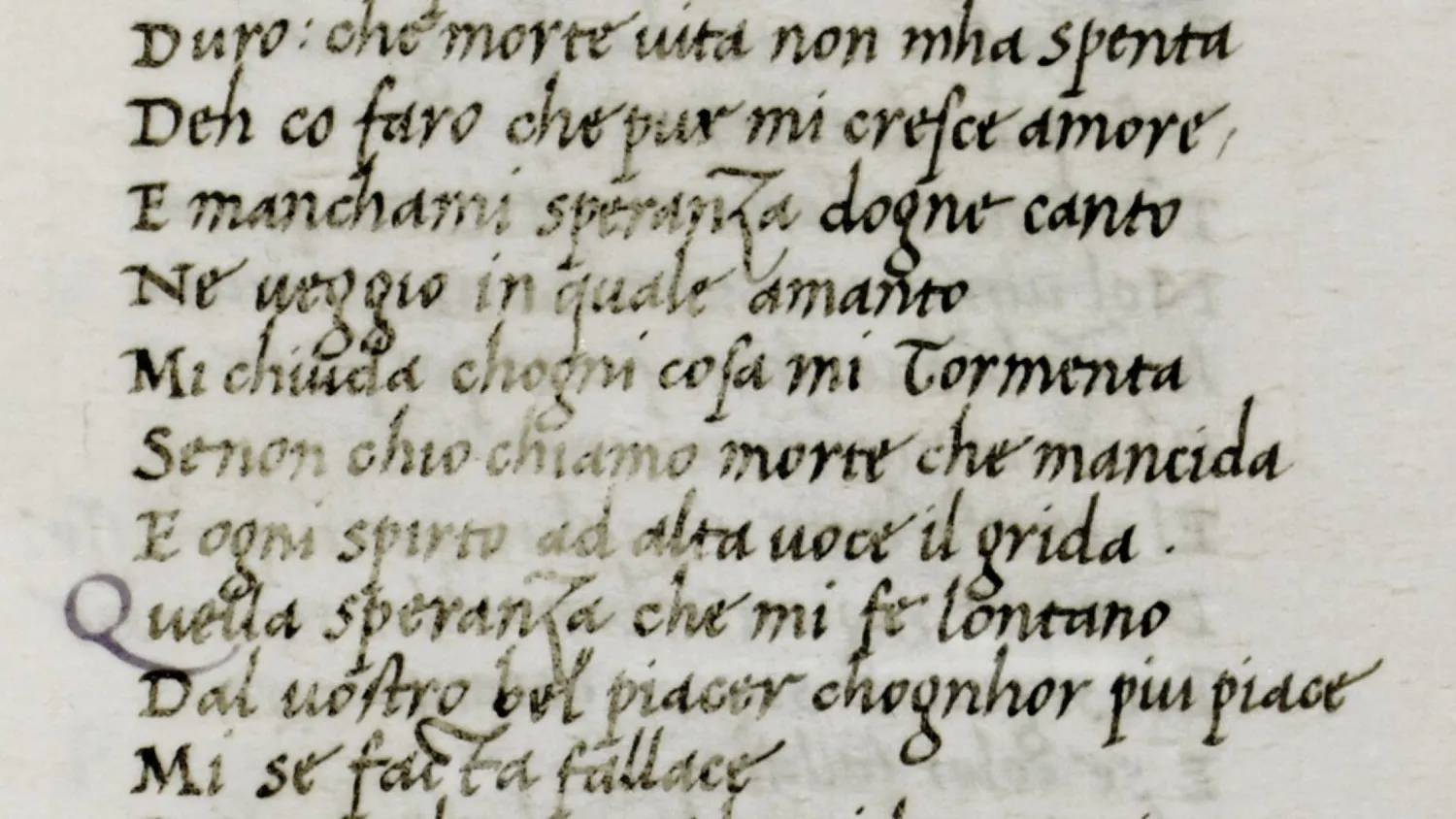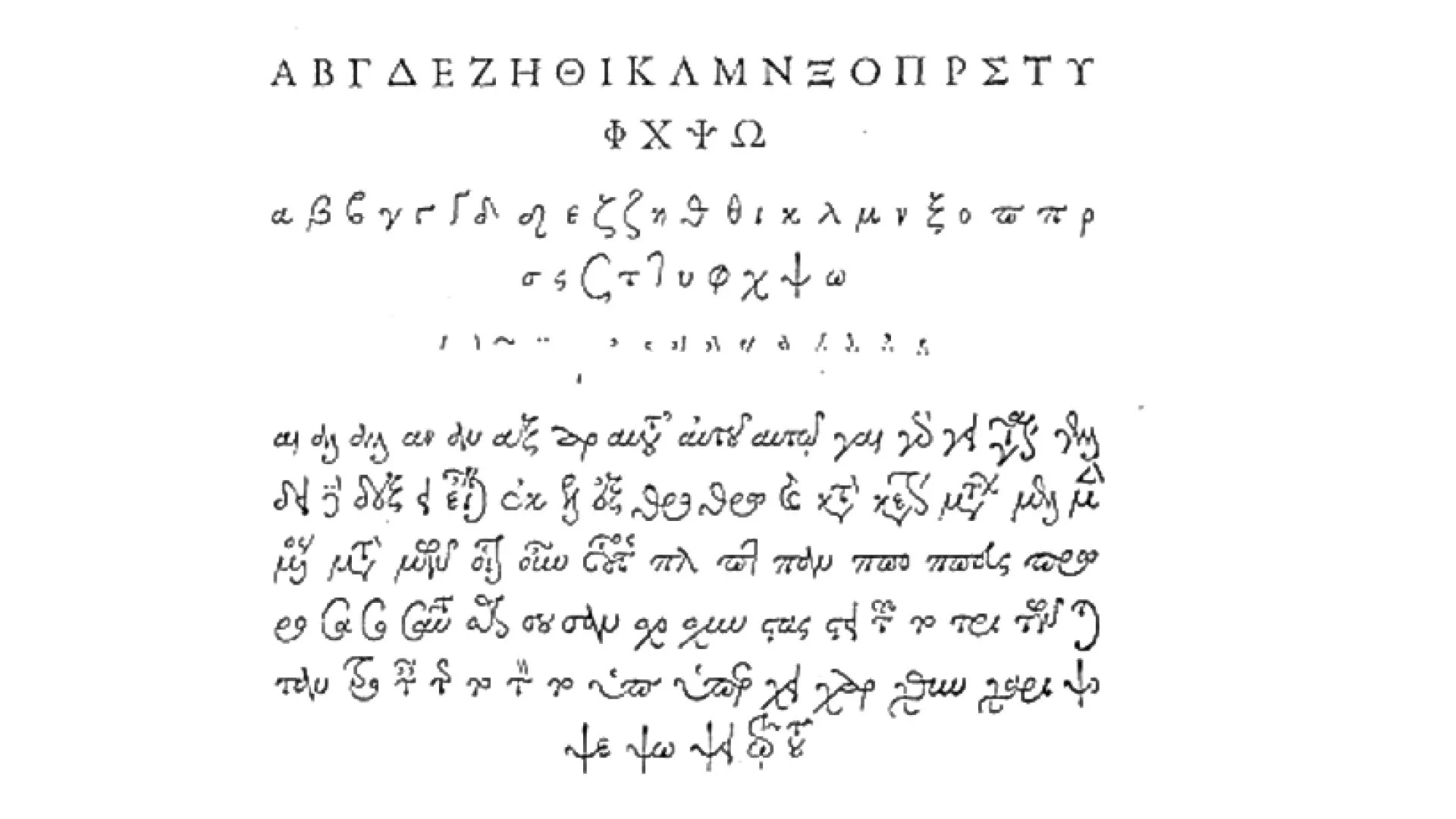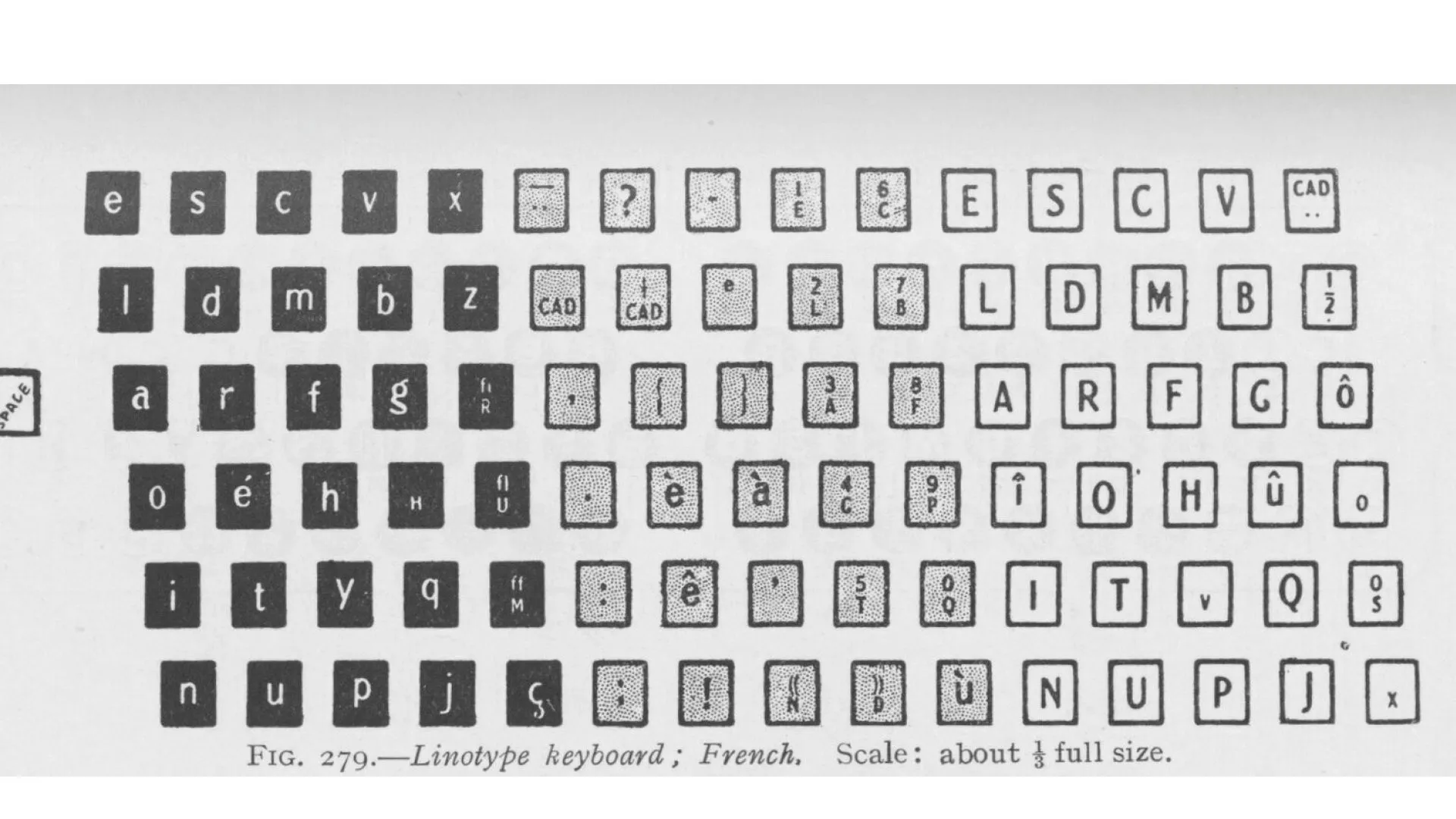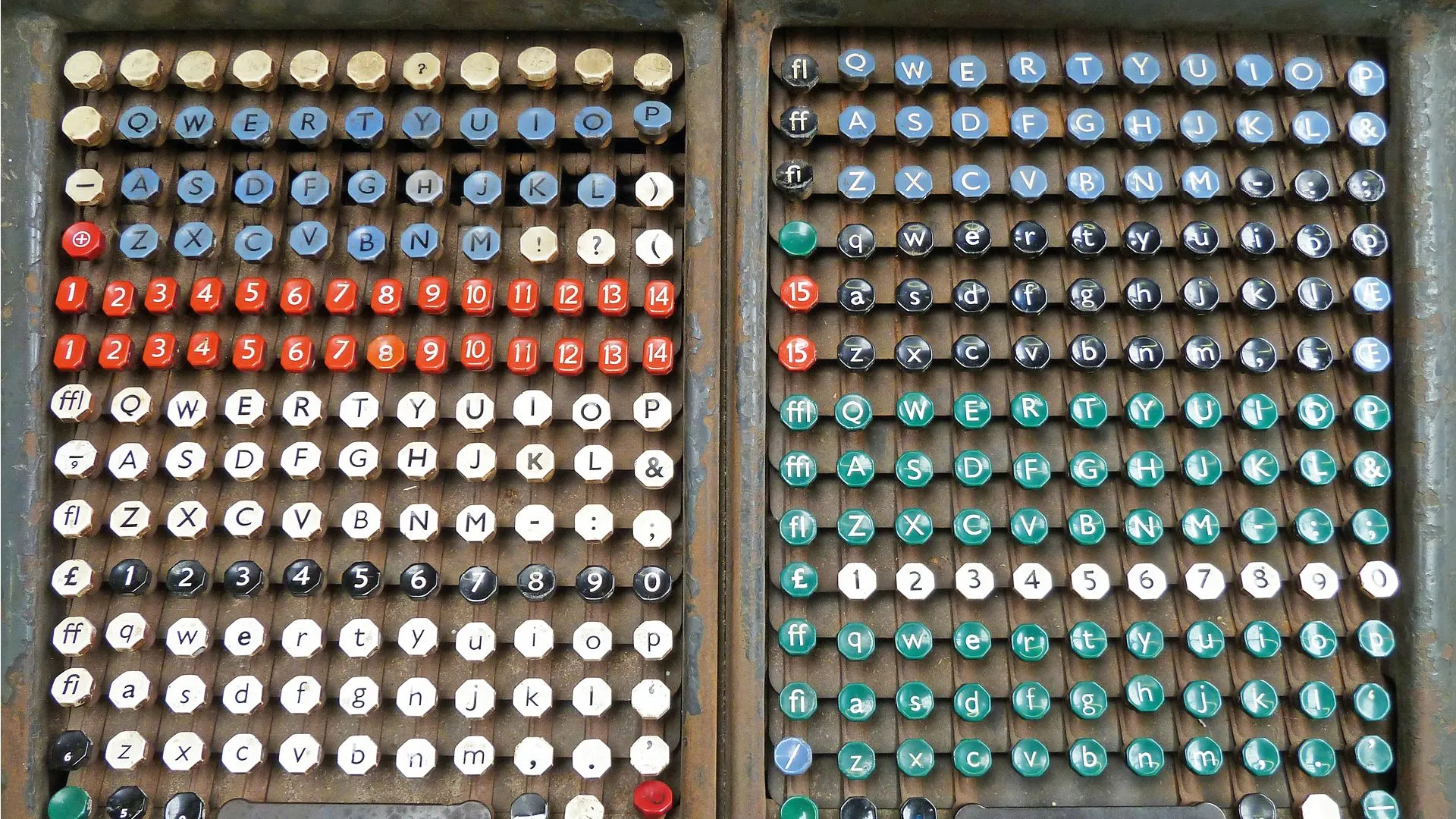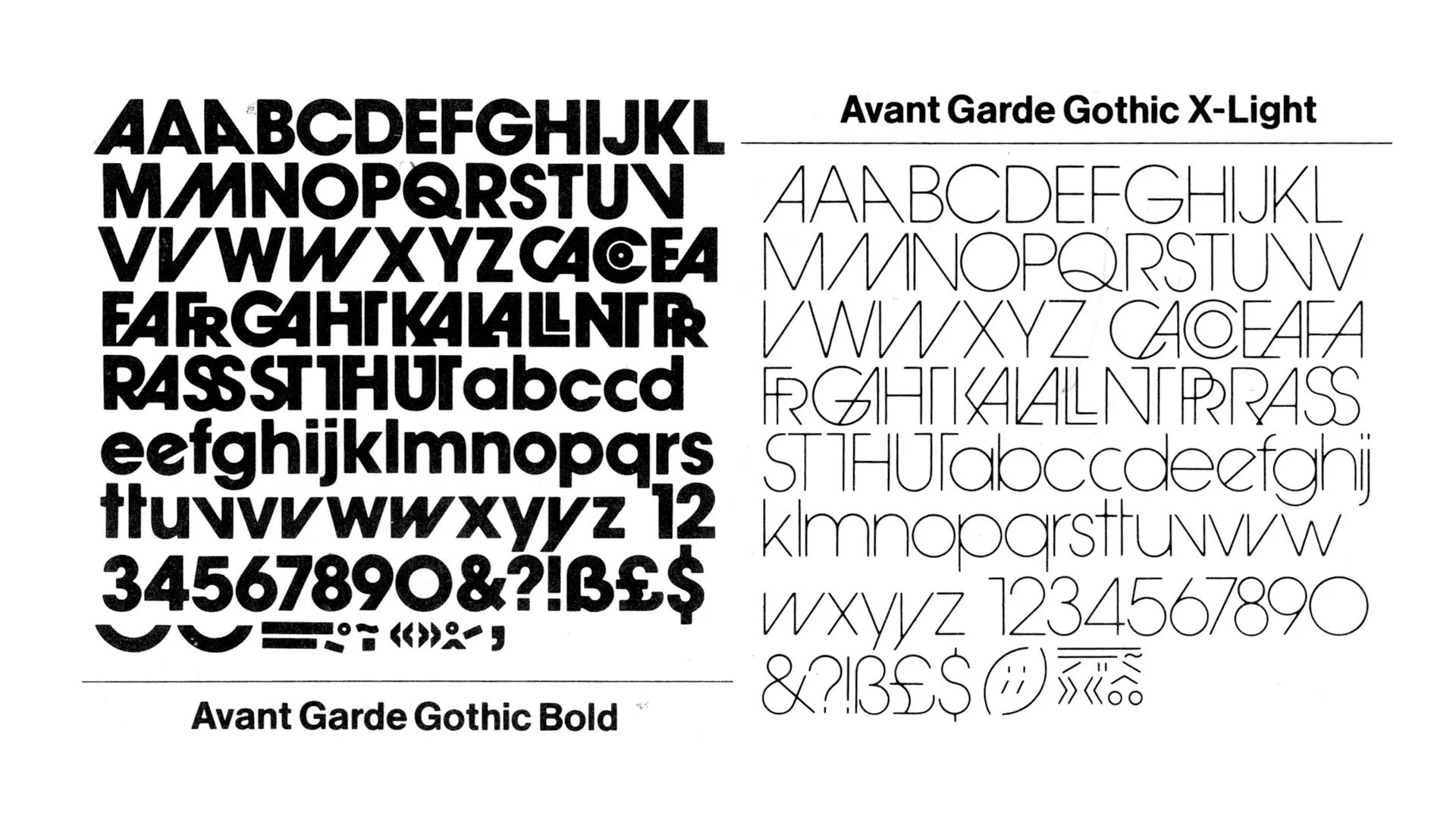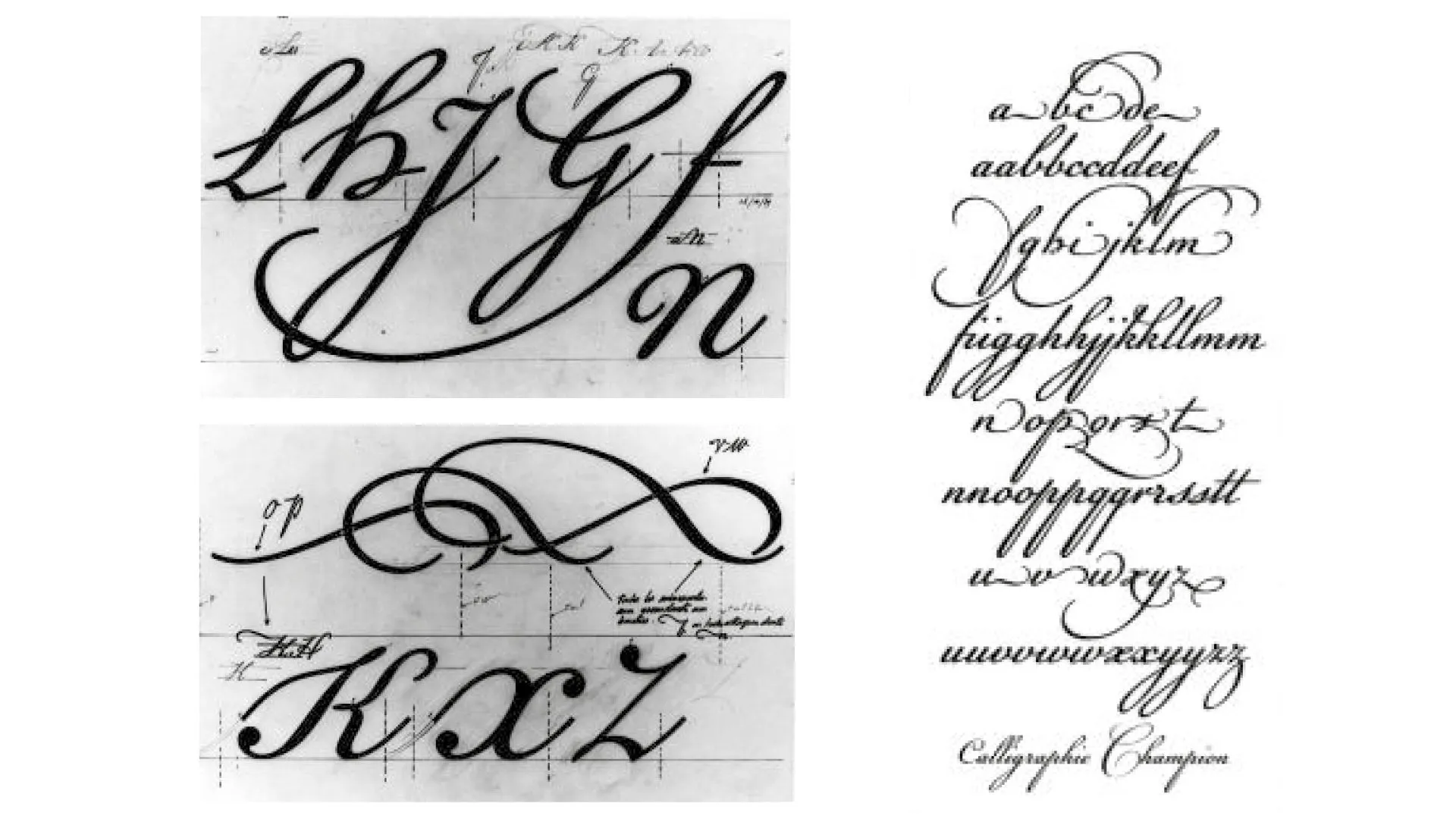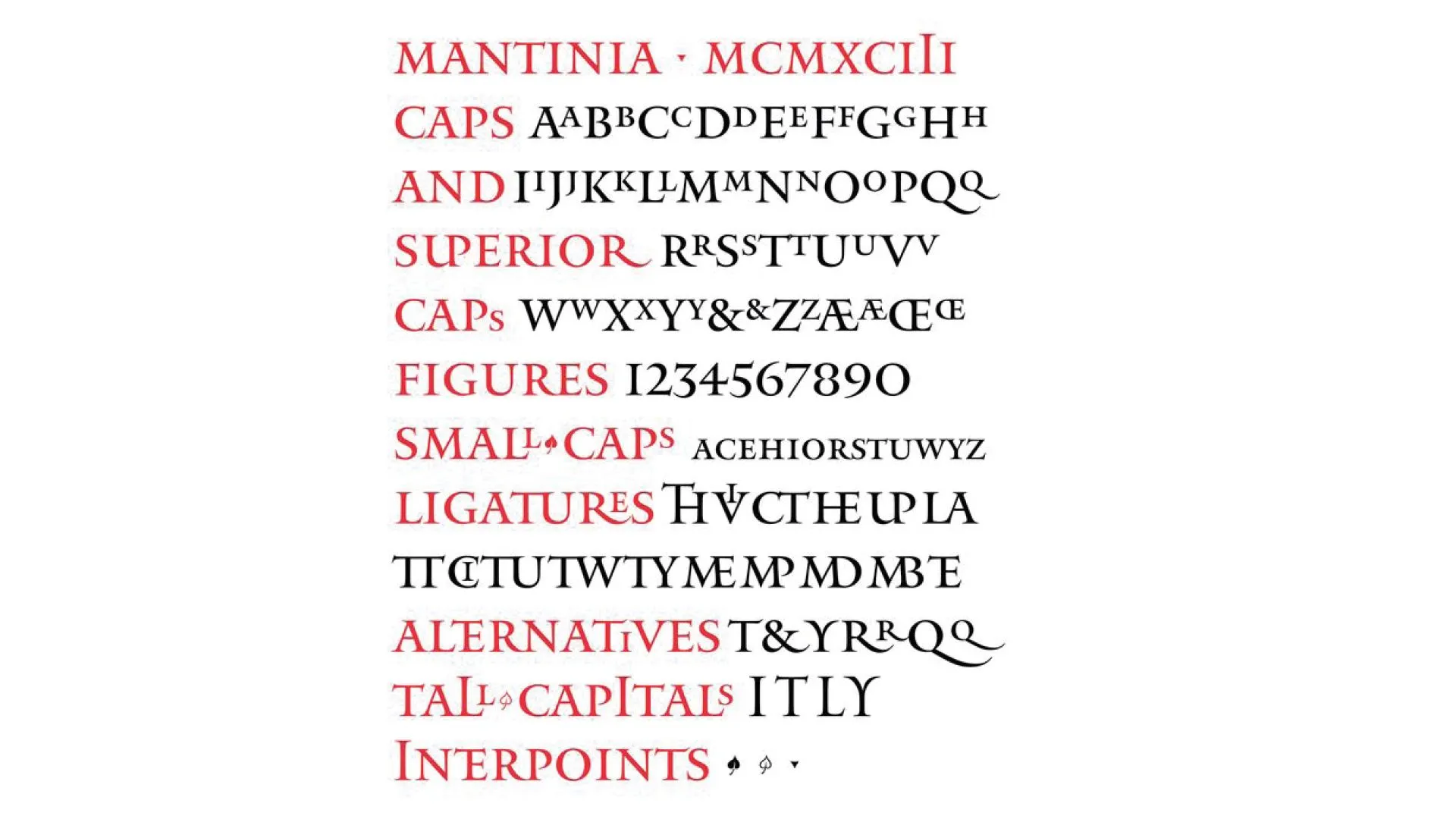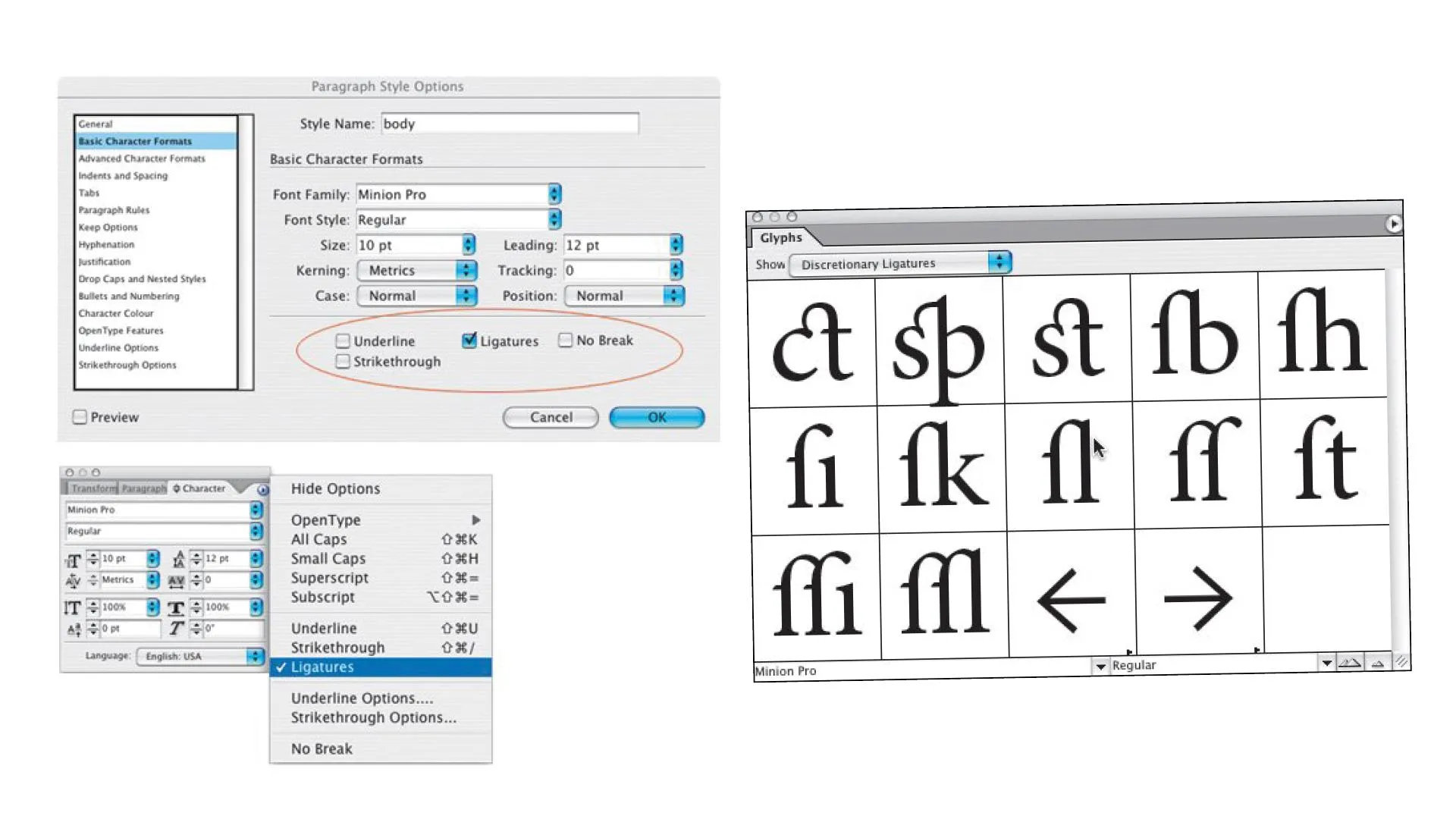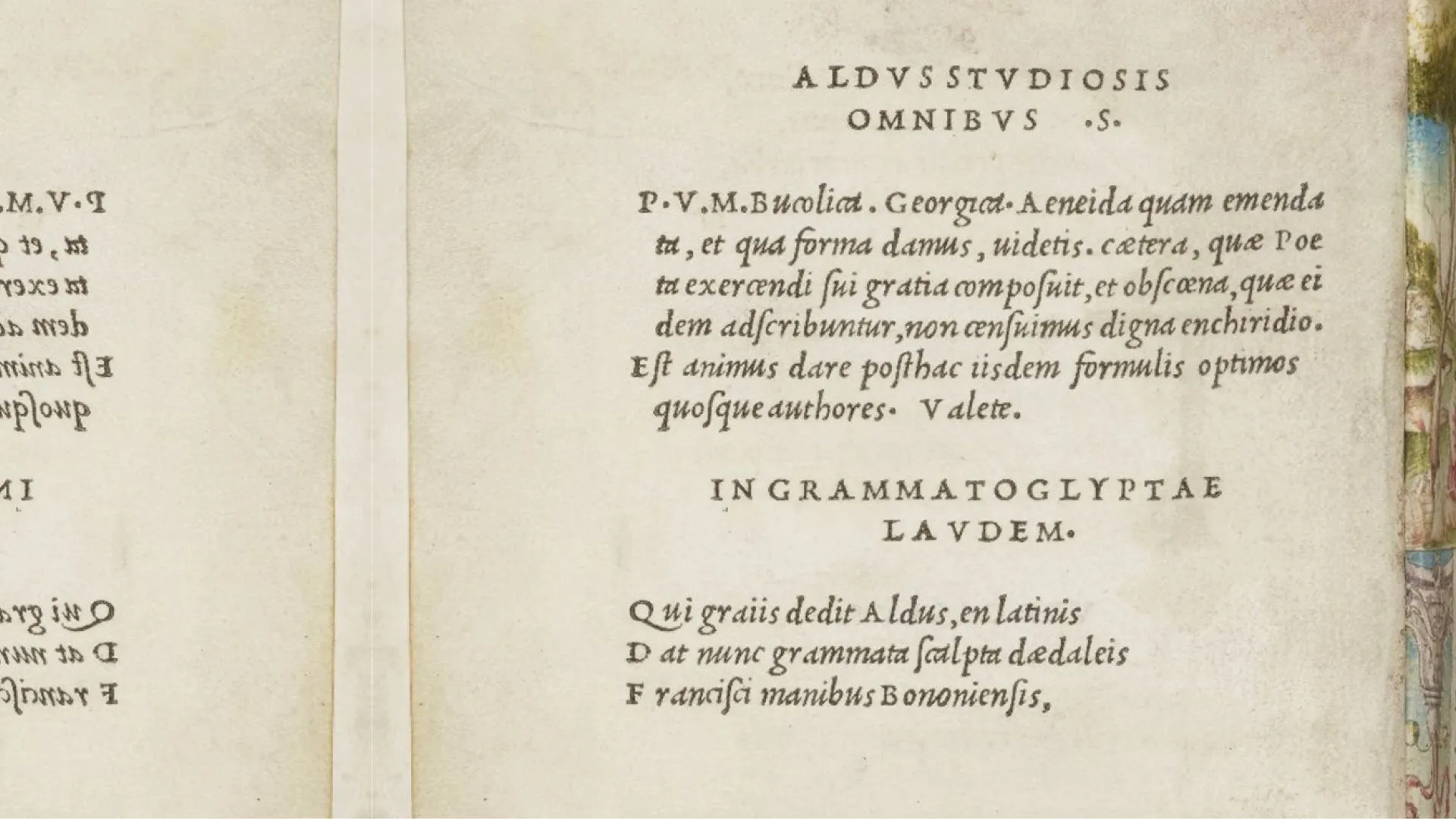
Italic ligatures: textual cursivity
Bartolomeo Sanvito’s chancery italics in a late fifteenth-century manuscript. Bindo Bonichi, Dante e Sennuccio del Bene, Canzoni, leaf 65. Milan, Archivio Storico Civico e Biblioteca Trivulziana. griffoggl.com
When italic typography appeared in 1499 under the impetus of Aldus Manutius (1444-1515) and engraved by Francesco Griffo (1450-1518), the aim was twofold: to reproduce the graphic style typical of humanist chancery writing, and to reduce the size of the letters in order to condense the text to an in-16 format, similar to our pocket books. This tour de force required Griffo to engrave 65 ligatures.
Aldus’s eulogy to Francesco da Bologna. Virgil, printed by Aldus Manutius in Venice, 1501. Biblioteca Nazionale Centrale, Florence. griffoggl.com
Other alphabets were not forgotten, and on November 2, 1540, François Iᵉʳ placed an order for a Greek typeface, in several sizes. Robert Estienne (1503-1559), the King's printer, turned to Claude Garamond (1499/1515 - 1561) to engrave the punches: the gros romain type set (16 points) was completed in 1543, the cicéro (9 points) in 1546, and the gros parangon (20 points) in 1550. Nearly 400 ligatures reproduce a set of letters that can also be used to compose numerous abbreviations.
Gros Romain by Garamont, in Vervliet 2008
However, this number tended to diminish with the italics that followed, proof that the desire to imitate the script was fading. From the Modern period onwards, typographic ligatures between capitals are virtually non-existent: reserved for titles, the economy of space is limited and the cutting of punches for this purpose proves too costly. Ligatures between lower-case letters, on the other hand, were frequently used. But when Italian engravers drew inspiration from Caroline to create the humanist Roman typefaces of the Renaissance, abbreviations and ligatures lost their presence. All that remains of this desire to reproduce the manuscript are the ligatures st, ct, sp and cp. The other ligatures, ff, fi, ffi, fl, ffl, are used to enhance the composition of the text.
The term ligature first appeared in France in 1680 . It was exported to England in 1693 and still designates a group of two or more letters joined together in handwriting or typography. The most popular ligatures are certainly the ampersand, symbolizing the Latin conjunction et, but also the German eszett, symbolizing the ligature of the letters ss or sz. As with Æ and Œ, these two ligatures operate as letters in their own right in some languages.
Forgotten ligatures: the restricted keyboard
Mobile typography evolved with the mechanization of typesetting machines. Ottmar Mergenthaler's Linotype (1885) enabled text to be composed on a 90-key keyboard, which cast separate block lines. Tolbert Lanston's Monotype (1887), on the other hand, composes individual characters on a 276-key keyboard, first in lines and then in blocks. In the first case, no ligatures are available except for œ ; in the second case, , Œ, œ, Æ, æ, ff, fi, ffi, fl, ffl are the only ligatures available. This scarcity of ligatures is the result of mechanization in search of efficiency and ease of use. The process had already begun with typewriters featuring a reduced keyboard. Until then, the task of composing a text was carried out without any real awareness on the part of the writer. He or she was free to write with a free hand, embellishing each letter with his or her own ductus. The mechanization of text composition for letterpress printing encouraged the craftsman to become aware of the formal specificities of each letter that became a typeface. Typographic cases, then keyboards, clearly display the hundreds of glyphs available for the proper drafting of text in the Latin alphabet.
Linotype keyboard
The natural evolution of printing involved a switch from relief printing to offset printing based on lithography, and from movable type to matrices in the form of photographic film. Initially, the Linotype served as the mechanical model for this new tool, replacing cast type with exposed film. With this in mind, the keyboard remained small, with only a limited set of ligatures.
Yet post-1948 American graphic artists and type designers drew on imagery inherited from the late 19th century to shape the graphics of future subcultures. In this exploited attic, ligatures are as much reminders of calligraphy as they are of ornamental splendor, set against the rigor of Swiss modernist graphic design.
Monotype keyboard
Renaissance ligatures: photocomposition and Letraset
In 1968, Herb Lubalin (1918-1981) designed the logotype for Avant Garde magazine, founded by Ralph Ginsburg (1929-2006). After numerous trials, he designed a personalized lettering based on a geometric lineal like the Erbar (1922) or Futura (1927), except that he reduced the lettering spacing to the point of interlocking the letters. To perfect his logo, he slants the A and V to make them more interlocking, while the NT follows in the form of a truncated T on the left side of its crosspiece. The GA uses traditional Roman lapidary ligatures, bringing the two letters closer together.
Later, in 1970, Lubalin took over his logotype and developed, at the ITC foundry and with the help of his assistant Tom Carnase (1939-), a complete typography: capitals, lowercase, numerals and an extensive set of ligatures faithful to the original model.
On the other hand, marketing requires getting around the technical limitation of the input keyboard. The solution is simple: simply offer a film matrix sheet listing the ligatures, in the same way as the other styles (italic and bold) are on a different matrix from roman.
The success of the typeface lies not so much in its design, but more in the overall graphic rhythm provided by the extremely tight approach, as with Helvetica (1957), and the richness of its ligatures. The ITC Avant Garde became the prototype of a "toolbox" typography: buying the typeface meant being able to compose logos and titles with the fidelity of Lubalin's spirit.
Within the OpenType format, ligatures are classified according to three classes: discretionary ligatures (dlig) combining capitals, historical ligatures (hlig) taking up less frequent old forms, and standard ligatures (liga), i.e. the usual links with the f and more classic forms such as ct, cp, st and sp. It's up to the type designer to exploit these nomenclatures faithfully, or not. The code injected into the digital file indicates the ligature class, as well as the designated character sequence and the final substitution glyph. Also, in the digital age, ligature is not so much a group of consecutive linked characters, but a replacement of one group by a different unit. So it's easy to change the ;-) sequence by a character symbolizing the "wink" emoticon, even if the final result no longer represents our punctuation marks. With this contemporary use of the smartphone keyboard, the ligature leaves behind its imitation of handwriting, abandoning its ornamental or aesthetic richness, to take on, like the first cuneiform ligatures, the pictorial representation of a new idea.